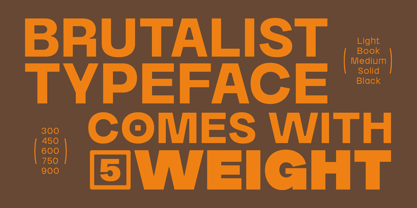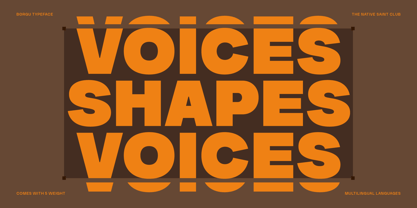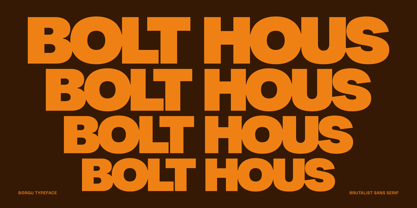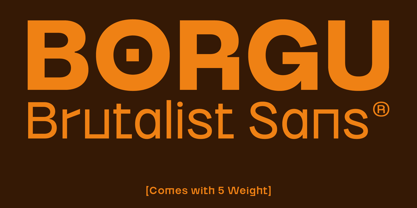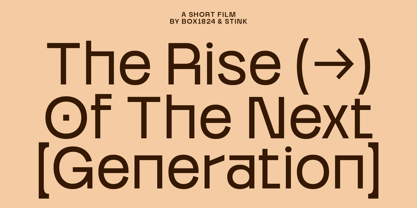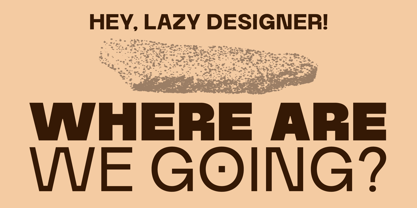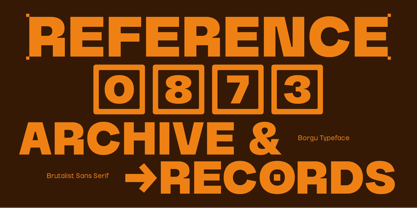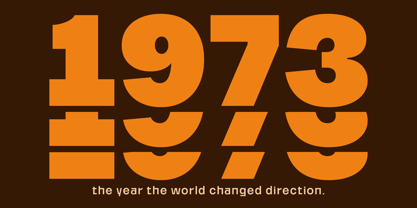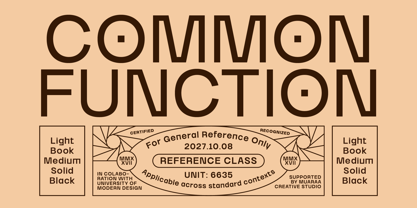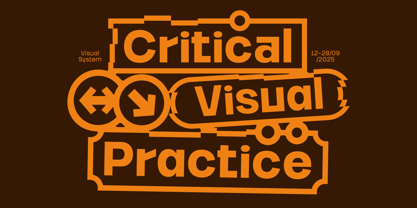
The Borgu Font Family was designed by Bagas Ferdiansah, Septianto Nugroho and published by The Native Saint Club. Borgu contains 5 styles and family package options.
TNSC Borde is a bold brutalist sans serif typeface built to make an immediate impact. Inspired by raw architectural forms, it features strong geometric shapes, high legibility, and a confident modern tone. Perfect for headlines, branding, posters, editorial layouts, packaging, and digital design. With 5 weights from Light to Black plus multilingual support, numbers, and punctuation, Borde offers the versatility you need to create clean, powerful, and contemporary visual work.